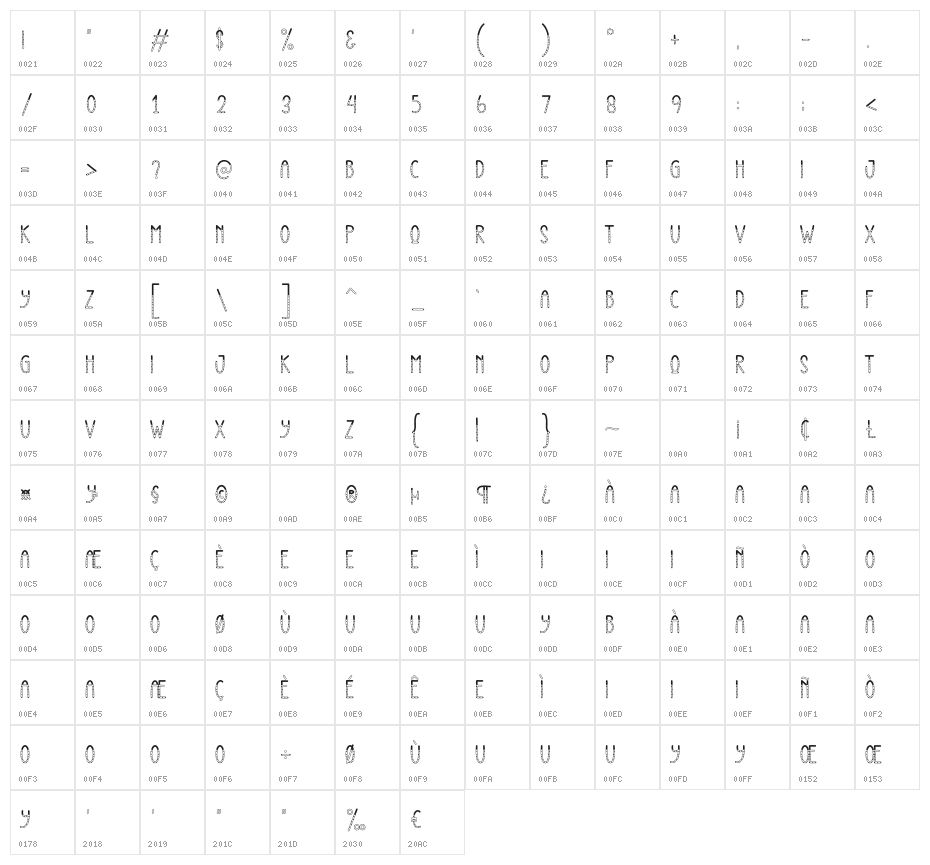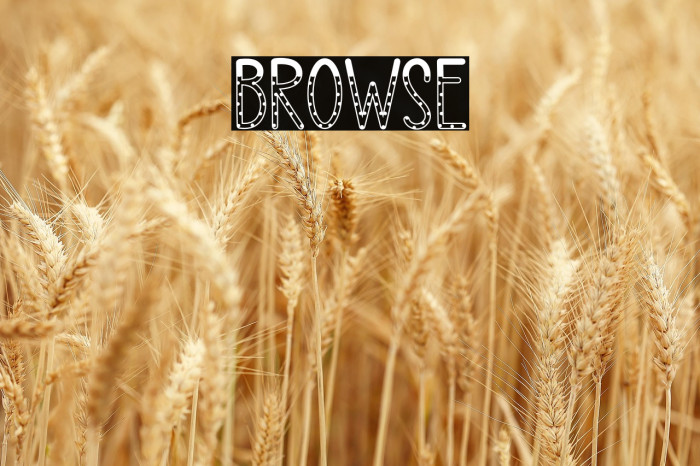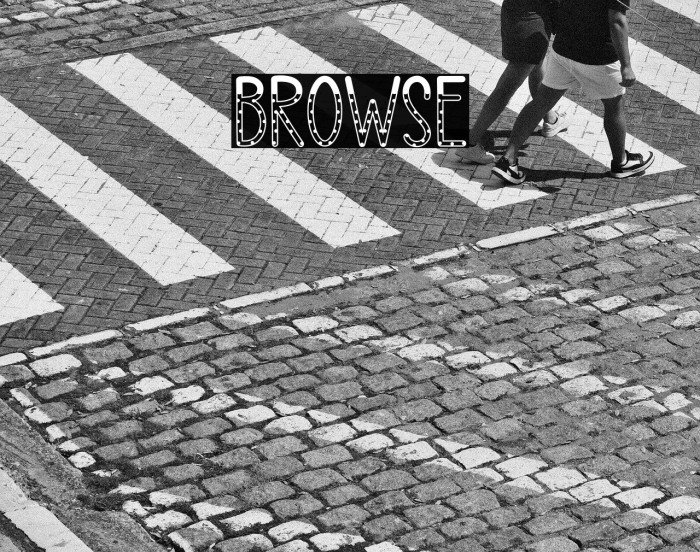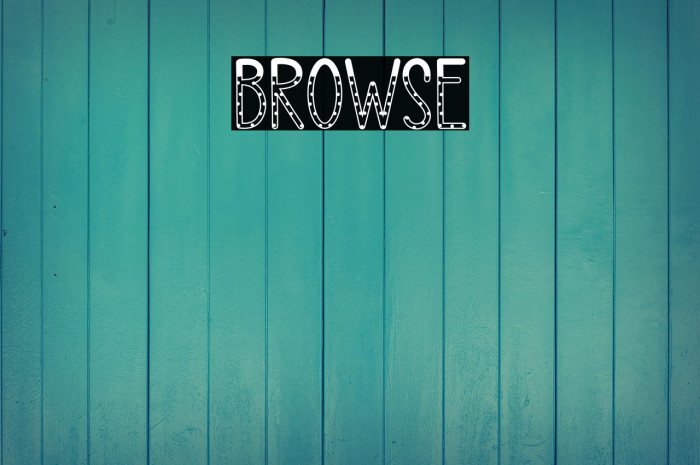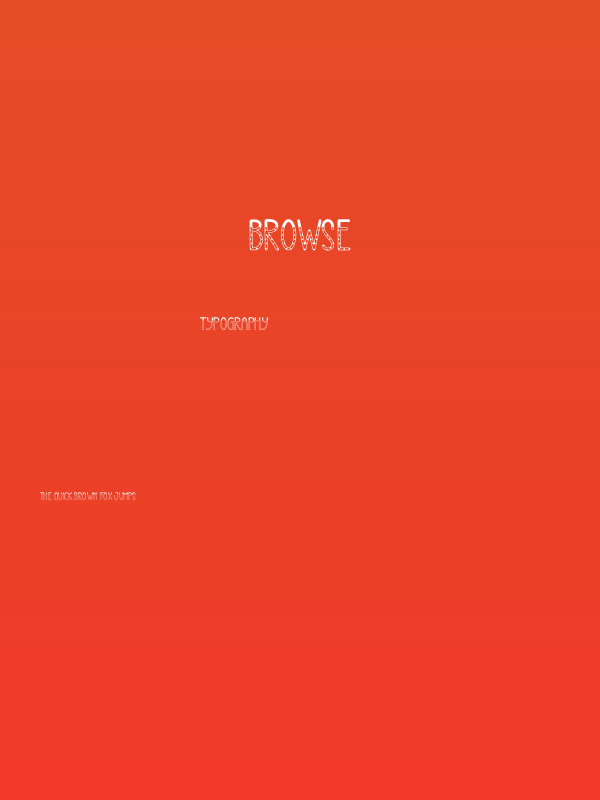
Browse Font
Browse Description
This font features a playful and decorative style with a unique pattern inside each character, resembling a doodle or hand-drawn effect. The letters are uppercase and lowercase, with a consistent thickness throughout, giving it a uniform appearance. The numbers and special characters follow the same design, ensuring cohesion across all elements. The font's whimsical nature makes it ideal for creative projects, adding a touch of fun and personality to any design. Its distinct look is perfect for capturing attention and conveying a sense of creativity.
| Proposed Projects | Ideal for children's books, creative posters, playful branding, and artistic invitations. |